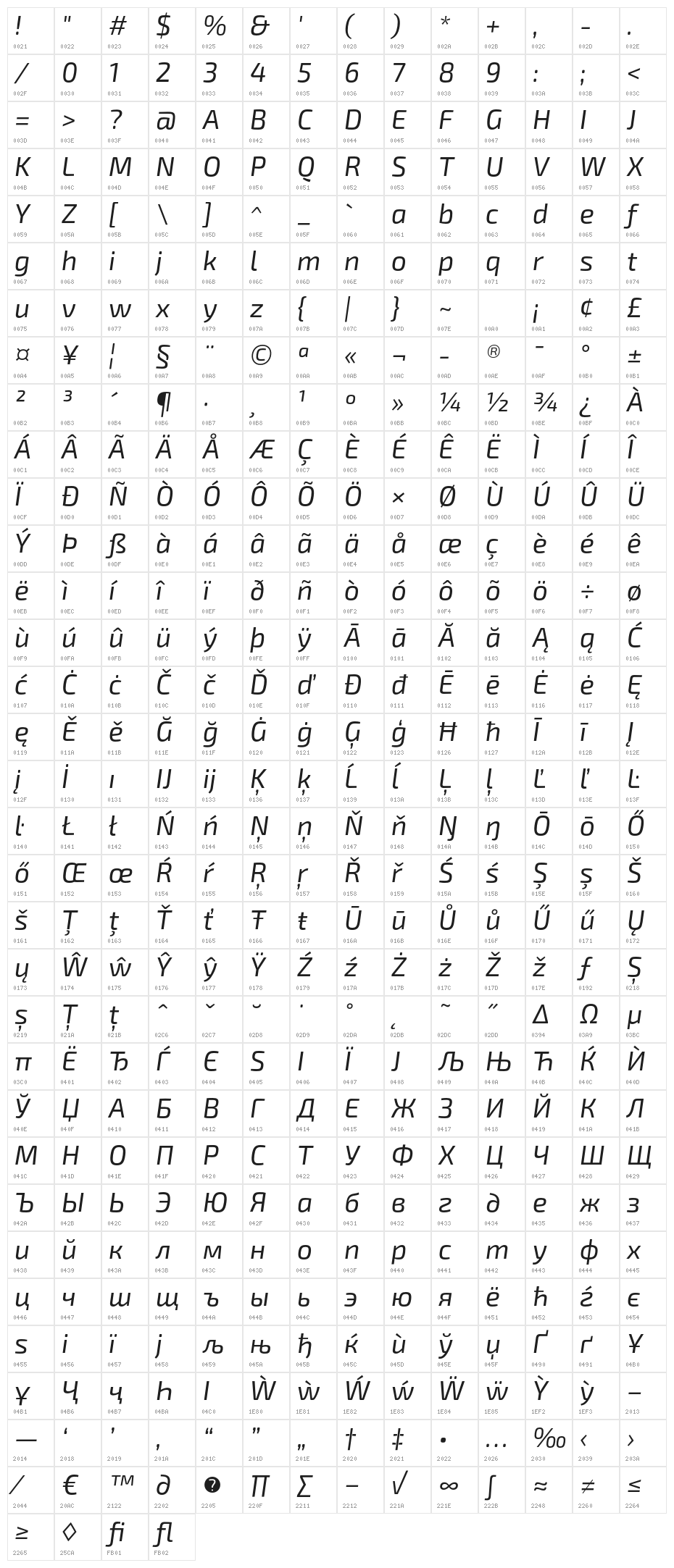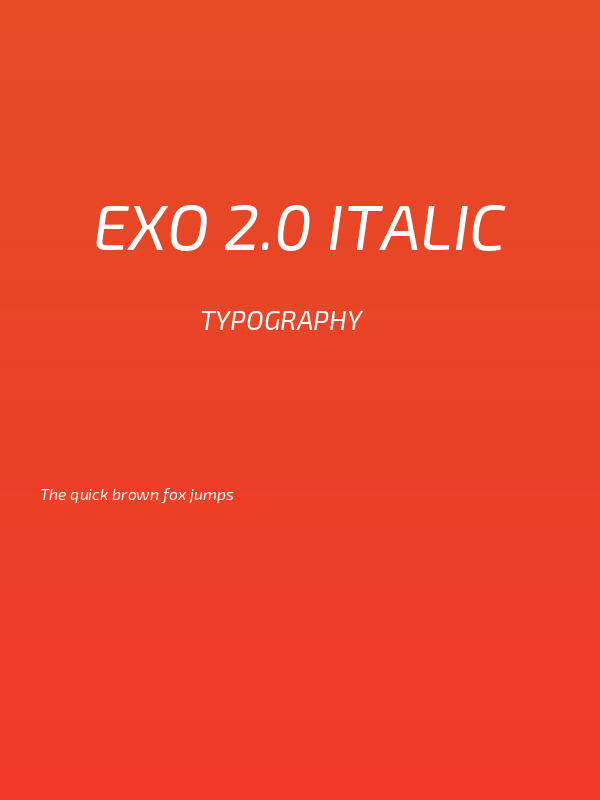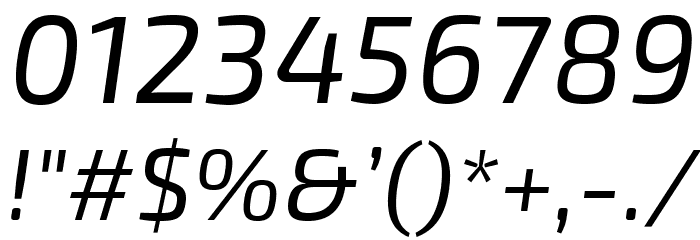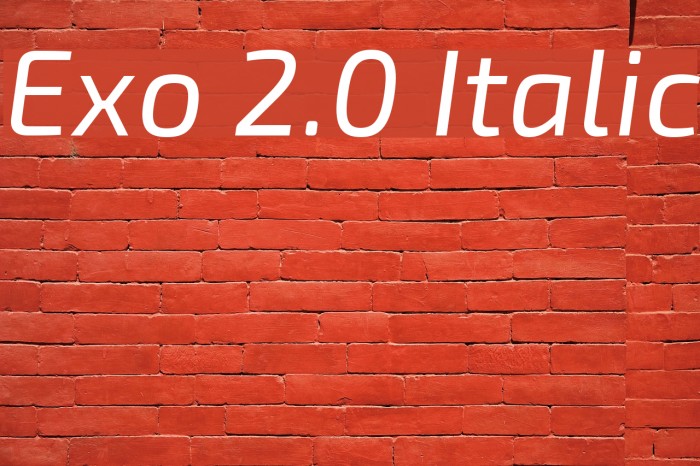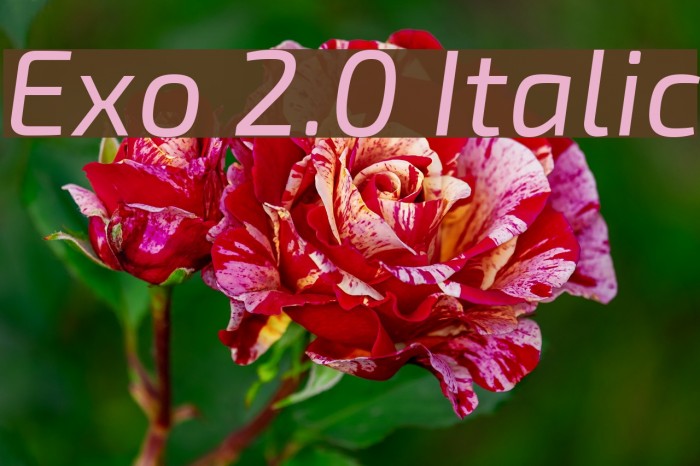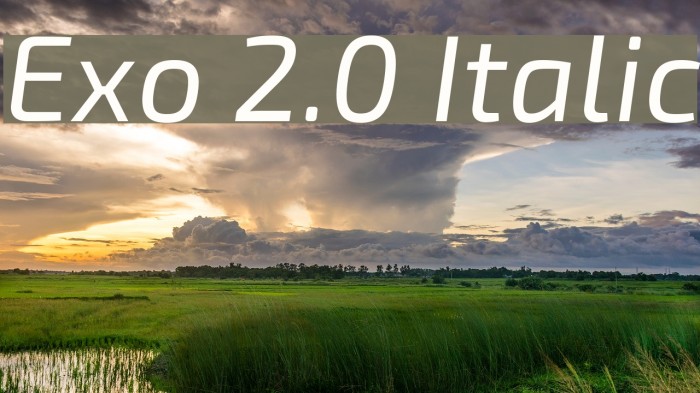
Exo 2.0 Italic Font
This font features a sleek, modern design with a slight italic slant, giving it a dynamic and forward-moving appearance. The characters are clean and well-defined, with a consistent stroke width that maintains readability across various sizes. The uppercase letters are slightly taller than the lowercase, providing a balanced and harmonious look. The numerals are clear and distinct, making them easily distinguishable. Special characters are crafted with precision, ensuring they complement the overall style. This font's contemporary aesthetic makes it suitable for a wide range of applications.
| Proposed Projects | Ideal for tech branding, modern web design, and innovative product packaging. |